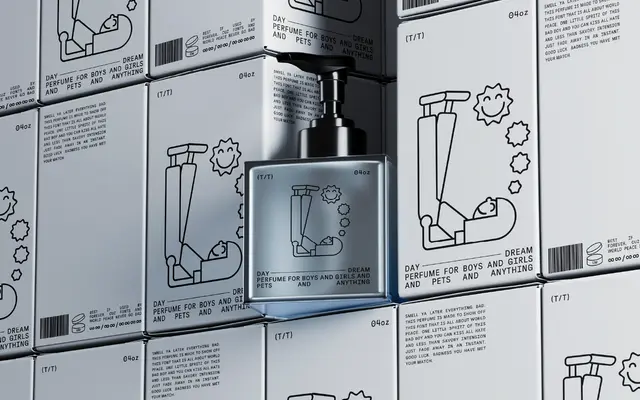
World Peace
A single-weight display face offered as a free font, covering basic Latin and built for headline use.
World Peace is a display typeface from That That Type, available as a free font. It ships in a single Display style with standard Basic Latin coverage, making it a straightforward choice for expressive headline and poster work. The limited character set and single weight suggest a focused, occasion-specific design rather than a workhorse family.
The typeface is explicitly categorised as Display by the foundry, with a single decorative style suggesting expressive, headline-oriented use rather than text setting.